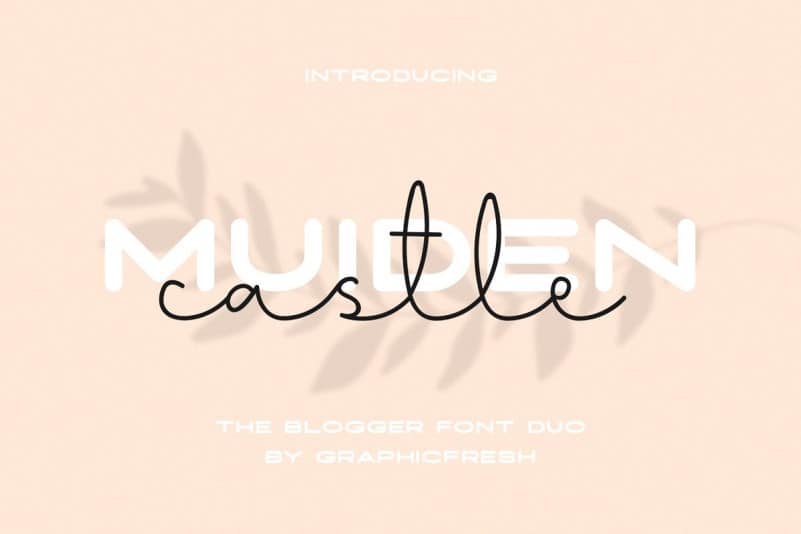
Introducing Muiden Castle Font Duo! It comes with an elegant and feminine style which is perfect to make any design stand out!
This font is perfect for branding, wedding invites, magazines, mugs, business cards, quotes, posters, and more.